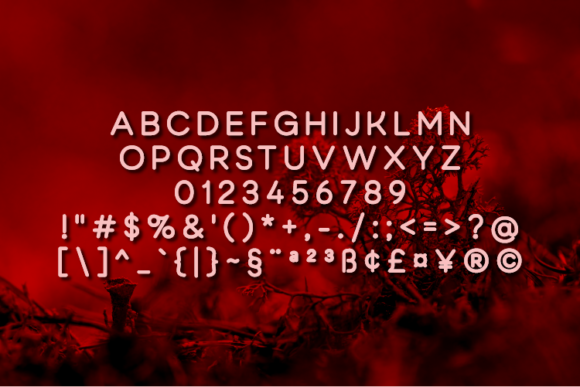
Introduction to Redmasse Font
Redmasse looks bold, yet sophisticated and features chunky and extended characters that will look particularly adept when used in logos, branding, packaging design, and much more.
Redmasse looks bold, yet sophisticated and features chunky and extended characters that will look particularly adept when used in logos, branding, packaging design, and much more. This masterfully des